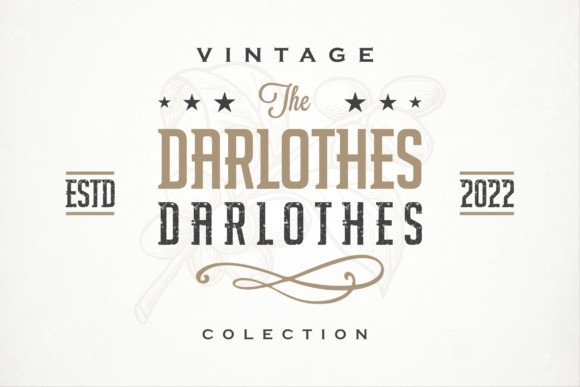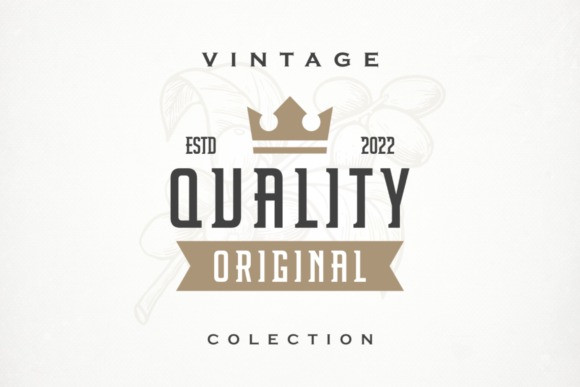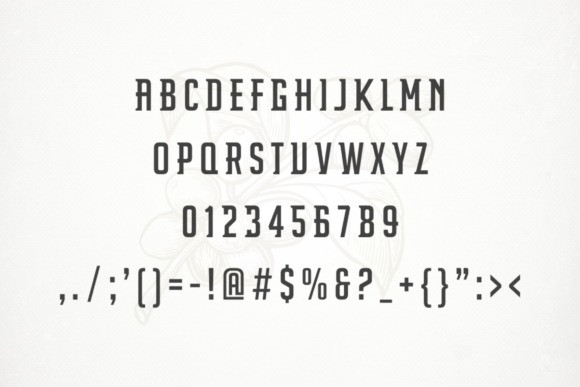
Darlothes Font
Darlothes is a bold and authentic slab serif font suitable for any branding project like logo, t-shirt printing, export, and many more. It looks outstanding in a wide range of contexts.